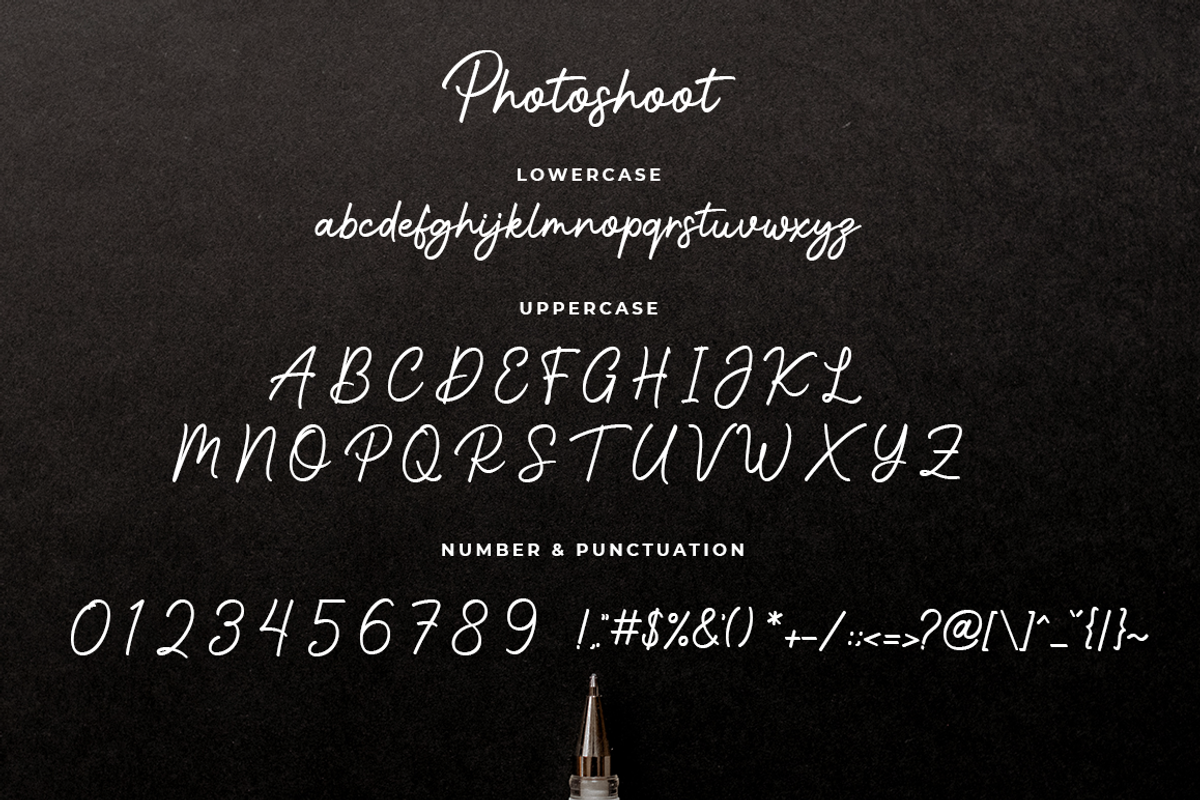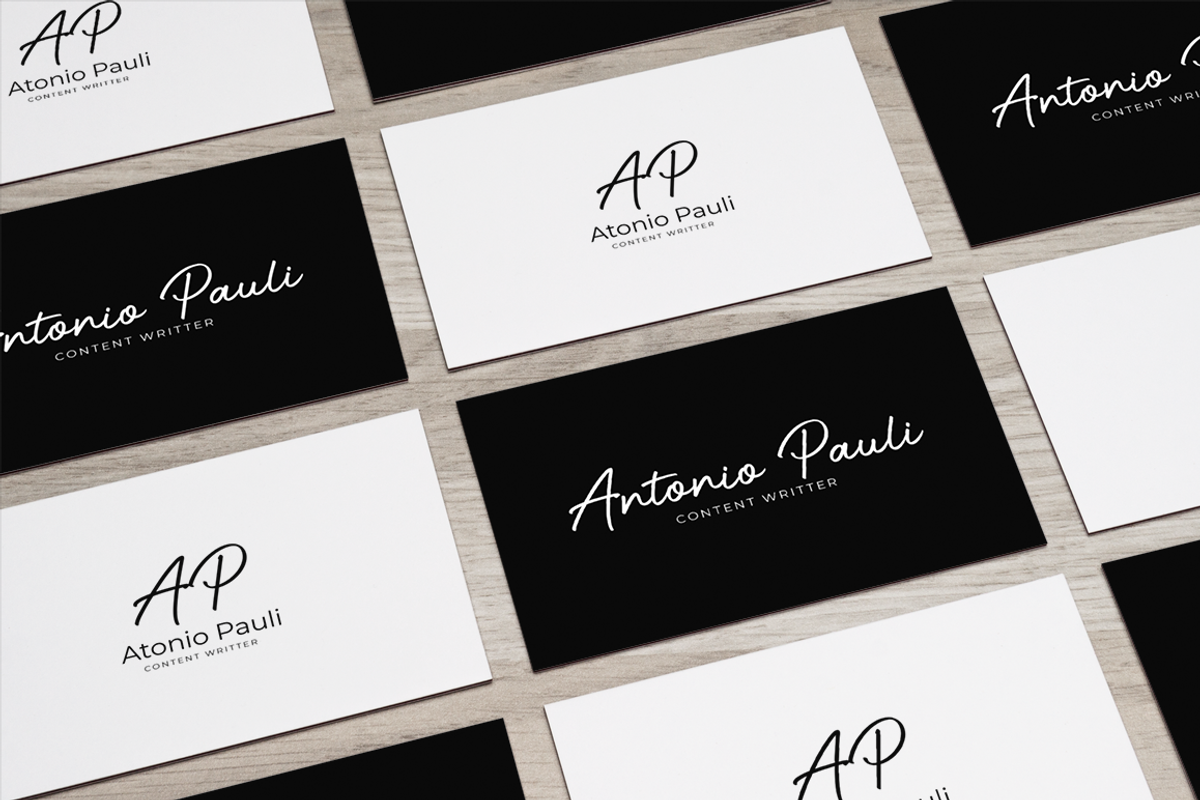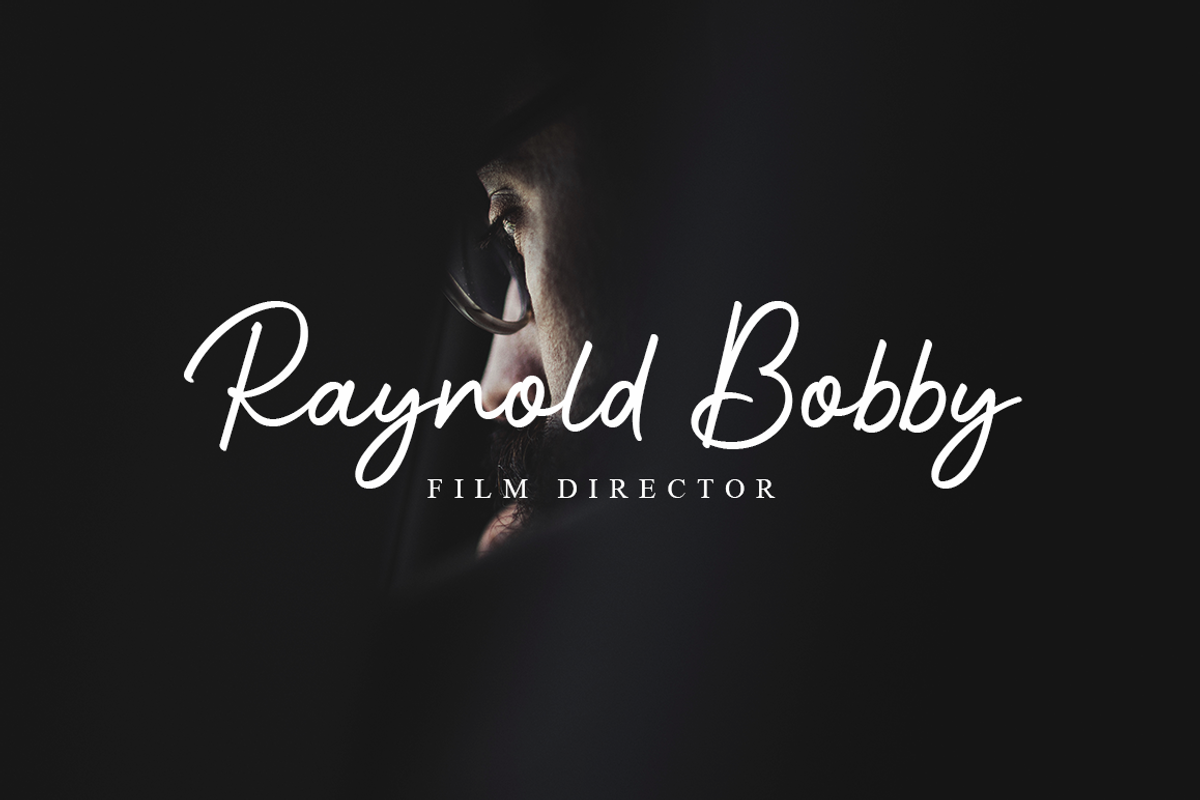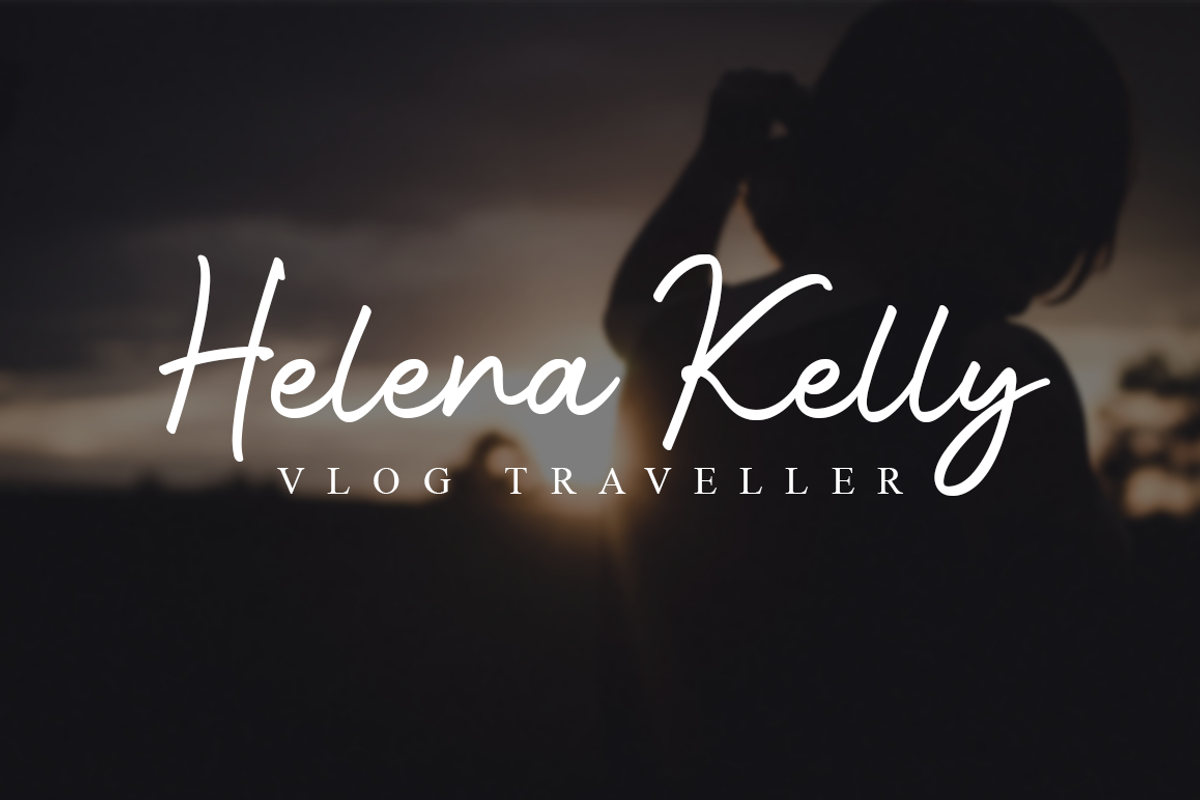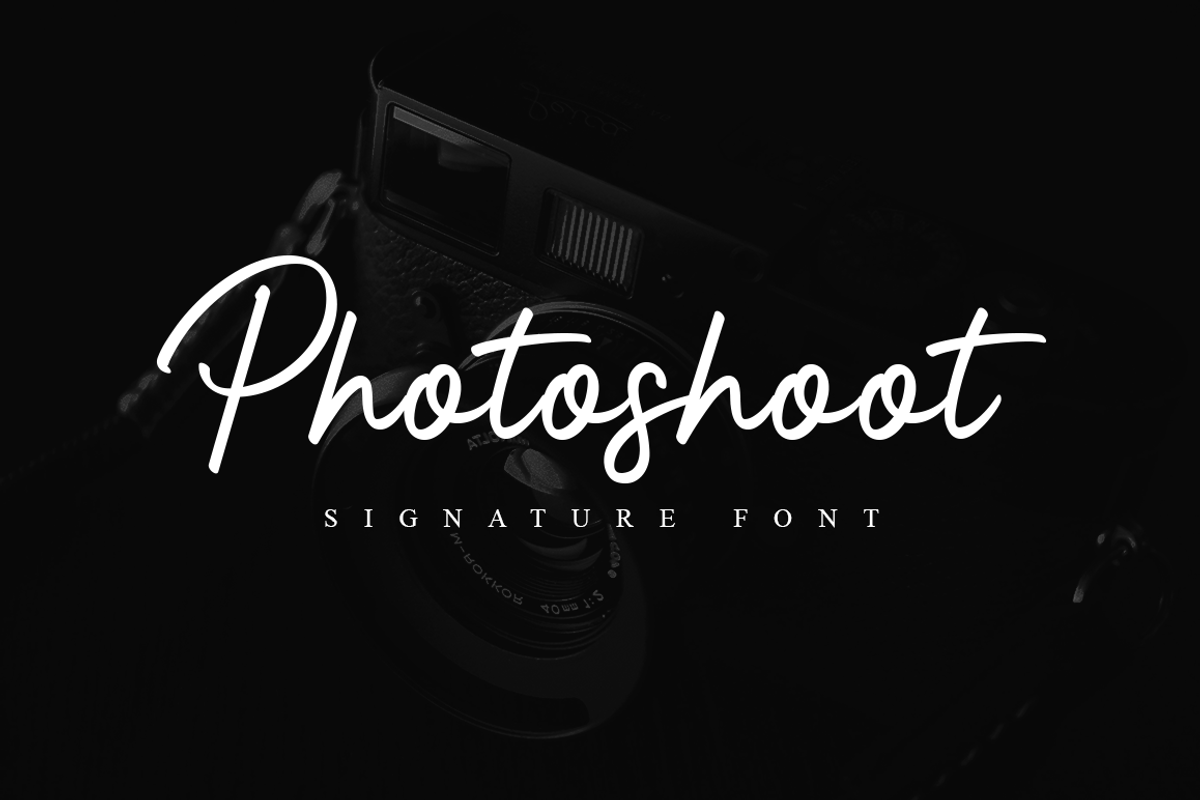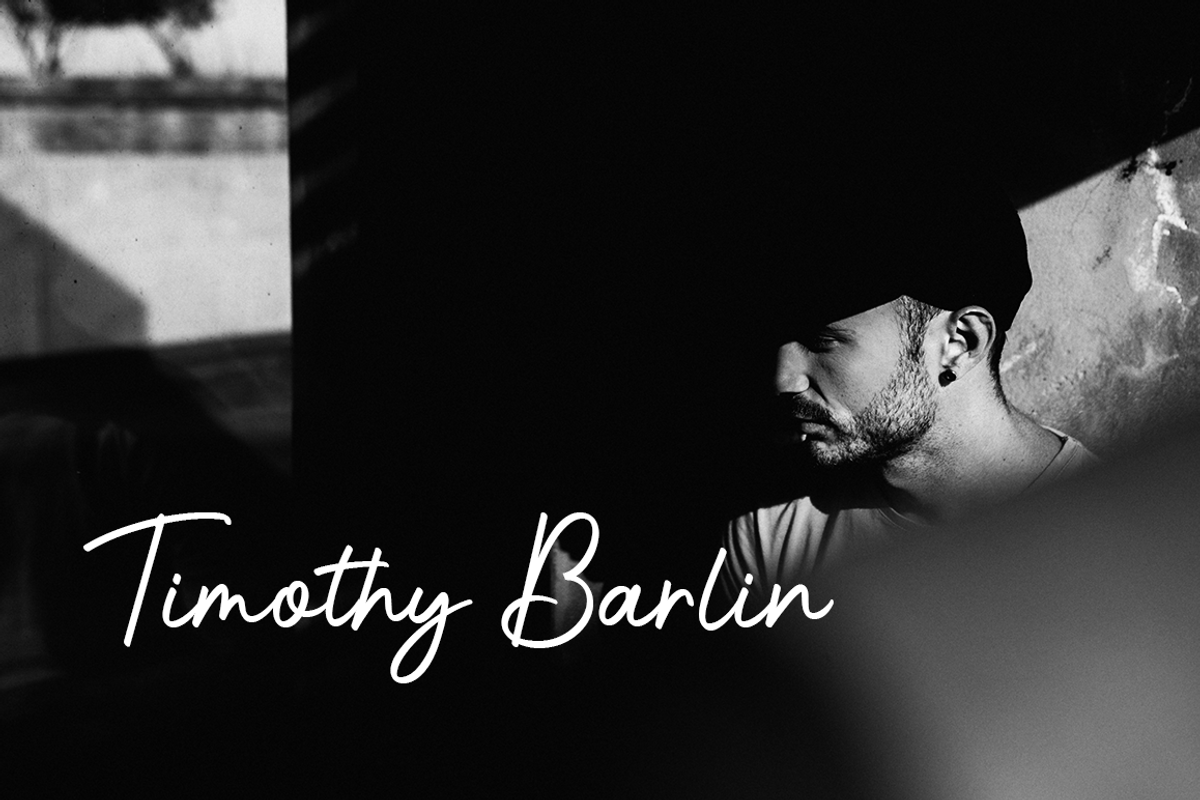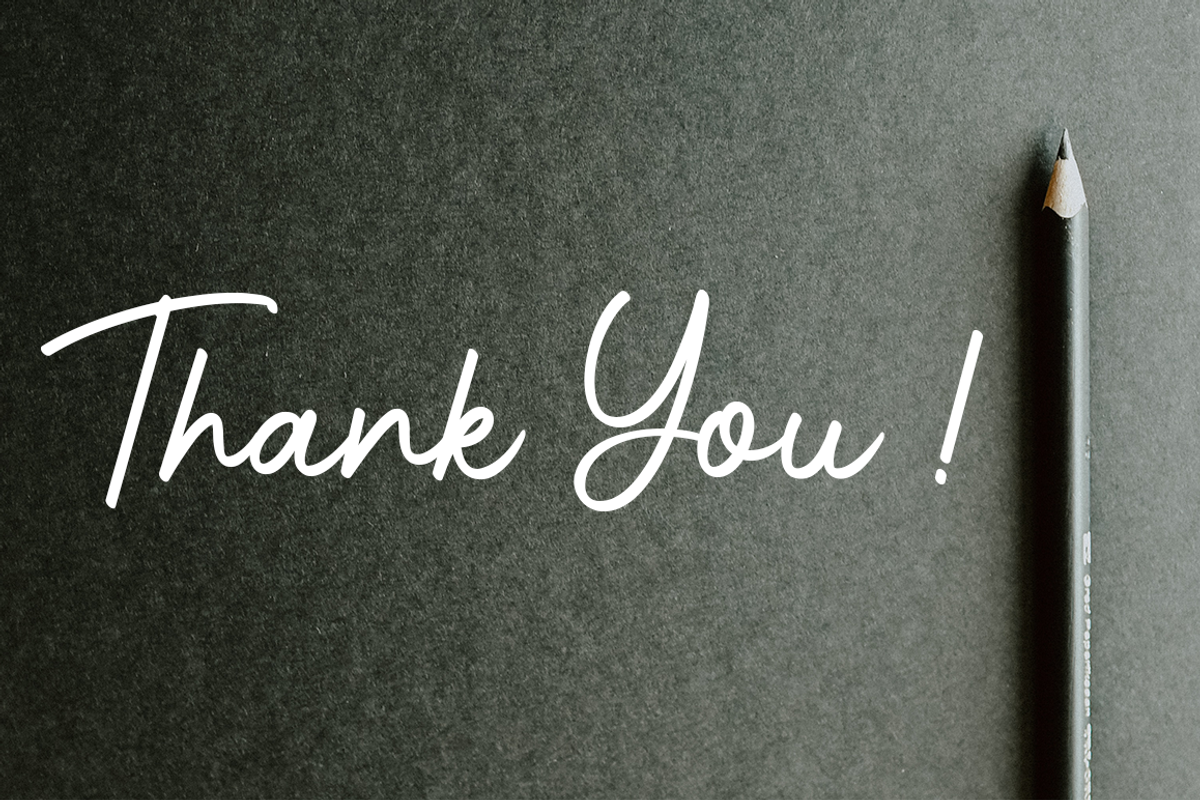
Photoshoot Signature
Photoshoot is a handwritten font in signature style. It is perfect for creating signature logos or logo signature and watermarks for photography, branding, etc.